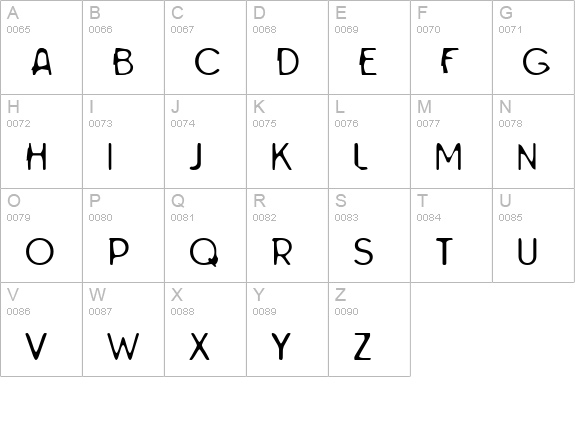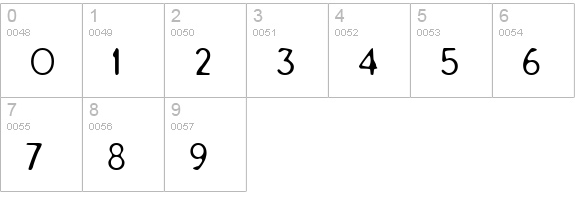
Tarnished Halo Font Details
Introducing Tarnished Halo, a captivating font that combines elegance with a touch of rustic charm. With its unique blend of delicate curves and weathered edges, this font is perfect for adding a vintage flair to your designs. Tarnished Halo exudes an air of sophistication, while also evoking a sense of nostalgia. Its beautifully tarnished appearance gives it character and personality, making it the ideal choice for projects that require a touch of authenticity. With its wide range of stylistic alternates and ligatures, Tarnished Halo offers endless possibilities for customization. Whether you're designing a logo, creating a wedding invitation, or crafting a vintage-inspired poster, this font will add a distinctive, handcrafted feel to your work. And the best part? Tarnished Halo is available for free download at FontsMarket.com. That's right, you can get your hands on this stunning font without spending a dime. So why wait? Embrace the allure of Tarnished Halo and take your designs to new heights of creativity. Download it now and let your imagination soar.